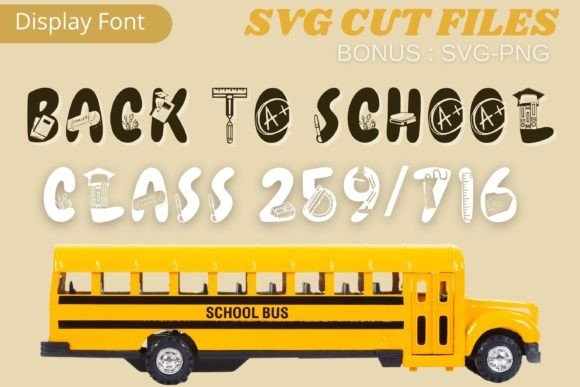
Get Ready for a Fresh New Look: The Back to School Font
As a designer, there’s nothing quite like the thrill of brainstorming a new project, envisioning the perfect combination of colors, shapes, and typography. It’s that moment of inspiration that sparks the creation of something truly special. For many, the excitement of a new school year is a time for fresh starts and new beginnings, and what better way to capture that essence than with a fun and unique font?
Meet the Back to School Font, a cool and playful decorative font designed to add a touch of whimsy to your designs. Whether you’re working on a blog post, logo, or invitation, this font is the perfect way to inject some personality and fun into your projects. Its versatility and ease of use make it a valuable addition to any designer’s toolkit, and with SVG and PNG files available, you can use it with confidence in a variety of applications.
Back to School Font Key Features
- Unique Characteristics: Includes fun and playful back-to-school themed characters, such as pencils, notebooks, and apples
- Font Style: Offers a bold, italic, and regular font style for added versatility
Back to School Font Review
Overall, I’m really impressed with the Back to School Font! It’s a great addition to any design project that needs a playful, yet professional touch. ✨ Here are some things that really work well:
- Consistency**: The font is consistently well-designed throughout, with a clear and cohesive style.
- Readability**: The font is easy to read, even in smaller sizes, making it perfect for body text.
- Creativity**: The font offers a lot of creative possibilities, with a range of styles and sizes to choose from.
- Limited versatility**: The font may not be the best choice for more formal or serious projects.
- Lack of international support**: The font may not include all the characters and languages you need for a global audience.
- No bold or italic styles**: While the font is available in a range of styles, it would be nice to see more options, such as bold or italic.
Overall, I’d definitely recommend the Back to School Font for most design projects. It’s a great choice for anyone looking for a fun and engaging font that’s still professional and easy to read.
The Back to School font is perfect for creating eye-catching posters, flyers, and social media graphics for back to school events, sales, and promotions. It’s also great for designing school-themed merchandise, such as t-shirts and water bottles. To get the most out of the font, experiment with different color combinations and font sizes to create a visually appealing design.